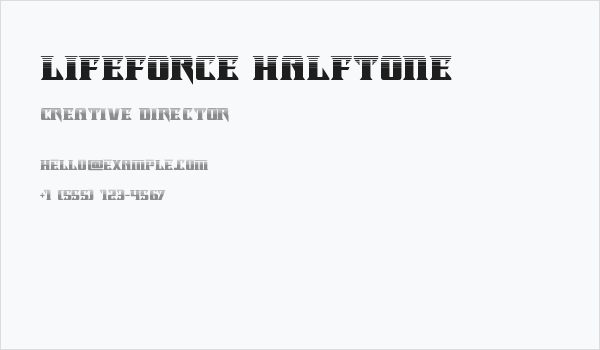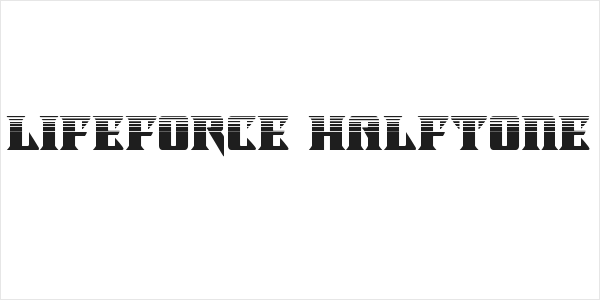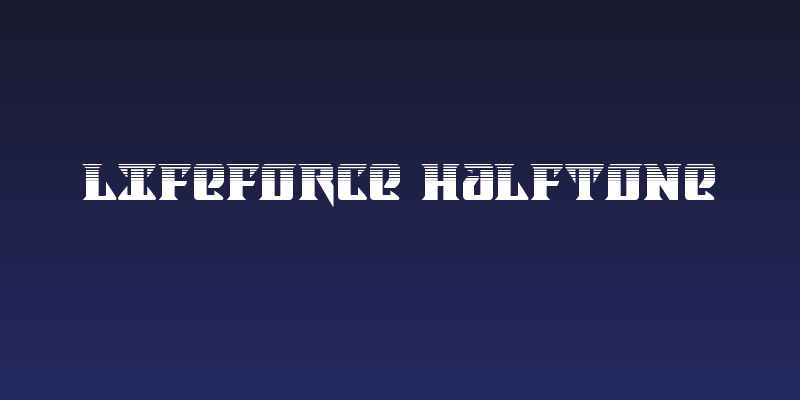
Lifeforce Halftone Font
Lifeforce Halftone Description
This font features a bold, striking design with a halftone effect that gives it a unique, textured appearance. The characters are constructed with solid, block-like forms that are intersected by horizontal lines, creating a dynamic visual effect. The uppercase and lowercase letters maintain a consistent style, with sharp angles and a futuristic feel. The numbers and special characters are designed to match the boldness and distinctiveness of the alphabet, making the font suitable for attention-grabbing designs. Its geometric structure and halftone pattern make it stand out, ideal for projects that require a modern and edgy aesthetic.
Proposed ProjectsIdeal for posters, album covers, video game graphics, and branding that requires a modern, edgy look.